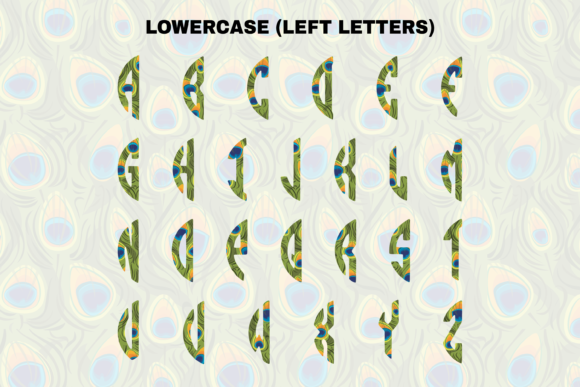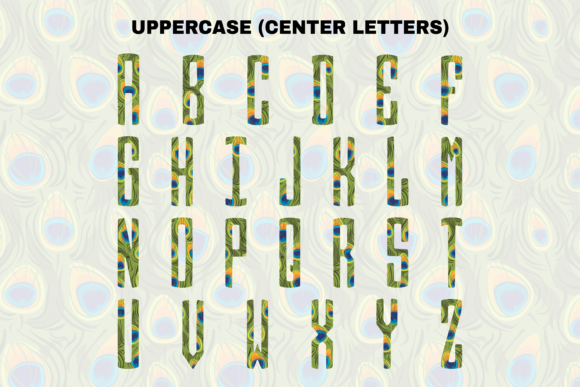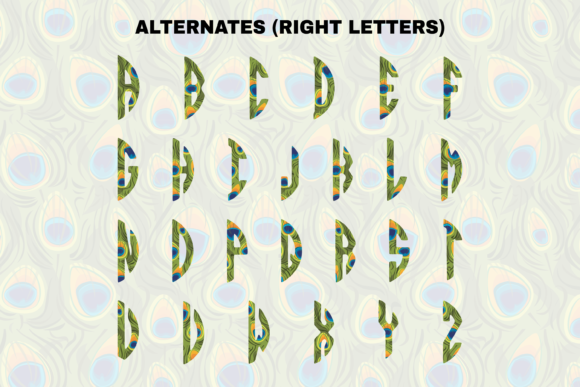
Introduction to Peacock Circle Font
Have you ever been working on a creative project, pouring your heart and soul into it, and then that one little thing stands out – the perfect font? For many designers, finding the right font can be the difference between a good design and a great one. That’s where the Peacock Circle Font comes in – a delightful 3-letter monogram font that’s as cute as it is customizable.
With its adorable peacock-inspired design elements, this font is sure to add a touch of whimsy to any project. Whether you’re creating custom designs, DIY crafts, or simply looking for a high-quality design resource, the Peacock Circle Font is an excellent choice. Plus, its transparent background makes it easy to work with and compatible with a range of design software, including PhotoShop, Illustrator, Silhouette, and Inkscape.
Key Features of Peacock Circle Font
- Unique, hand-drawn design with a peacock-inspired theme, perfect for creative projects and designs.
- Available in high-quality vector format (SVG) for scalable use, ensuring crisp and clear display on various resolutions.
- Transparent background, allowing for seamless integration with any design or background image.
- Perfect for use in various design contexts, including branding, advertising, and digital art projects.
Honest Review: Peacock Circle Font
I recently came across the Peacock Circle Font and was excited to give it a try. As a designer, I’m always on the lookout for high-quality design resources to enhance my creative projects.
Here are the things that work well:
- ✨ Unique and eye-catching design: The Peacock Circle Font has a distinctive and vibrant style that’s perfect for adding a pop of color to any design.
- ✨ Transparent background: This feature makes it easy to customize the font to fit any background, giving you complete control over the design.
While I was initially impressed, I did encounter a few limitations:
- ⚠️ Limited font sizes: The font only comes in a few sizes, which can make it difficult to use in certain situations.
- ⚠️ Not suitable for all designs: The bold and colorful design of the Peacock Circle Font may not be suitable for all types of projects, such as formal or minimalist designs.
Overall, I think the Peacock Circle Font is a great addition to any designer’s toolkit, but it’s essential to keep its limitations in mind when using it in your creative projects. With a little creativity and customization, it can be a fantastic design resource for enhancing your work.
Tips for Getting the Most Out of Peacock Circle Font
Use the Peacock Circle Font to add a touch of elegance and sophistication to your designs. Experiment with different font sizes, colors, and styles to create unique and eye-catching effects. Combine the font with other design elements, such as graphics and images, to create a cohesive and visually appealing design.
The Peacock Circle Font is ideal for various creative projects, including wedding invitations, event branding, and product packaging. Its high-quality design and transparent background make it a versatile resource for designers. Use it to create stunning titles, headings, and text elements that add a touch of luxury and sophistication to your designs.